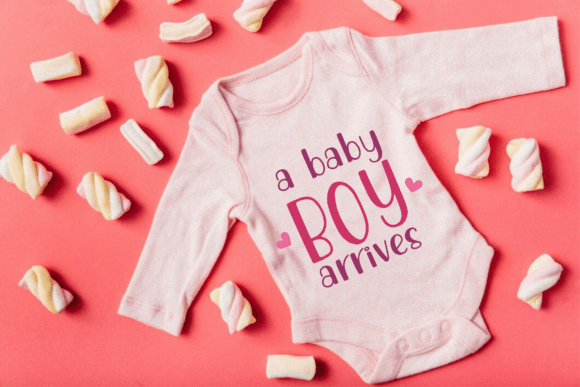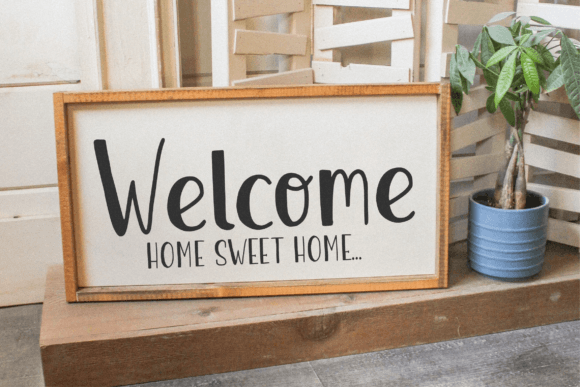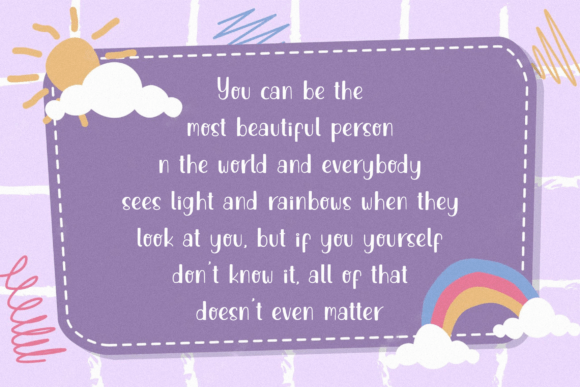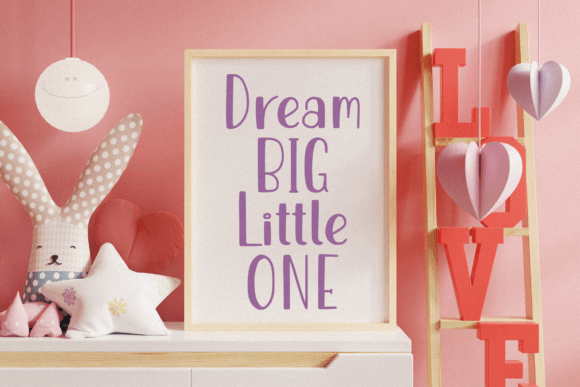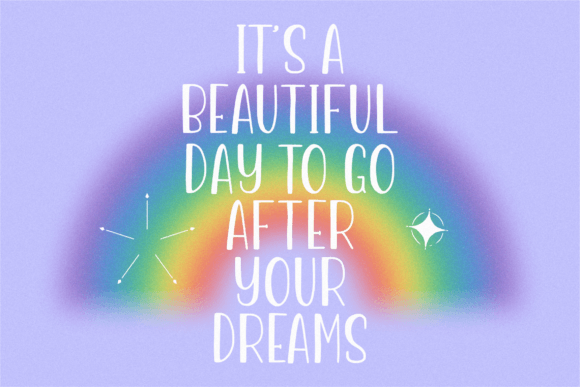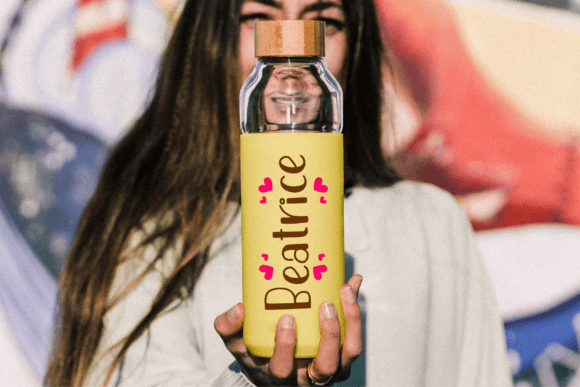
Introduction to Rainbow Sunshine Font
Rainbow Sunshine is a handwritten display font perfect for product packaging, branding projects, magazines, social media posts, weddings, or just used to express words above the background.
Key Features of Rainbow Sunshine Font